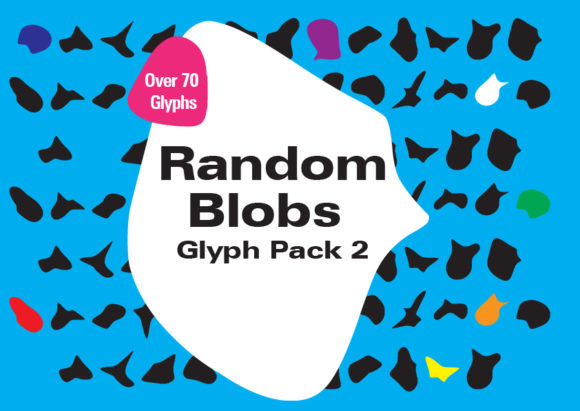
Prepare to be wowed by the remarkable Random Blobs 2 Font, a masterpiece from the renowned GraphicsBam Fonts. This font family, categorized as a dingbats font, is adorned with a collection of captivating glyph shapes that will ignite your imagination and transform your creative endeavors.
Immerse yourself in the world of Random Blobs 2 and discover a universe where sharp lines and pointed edges dance together in perfect harmony. Each element in this dingbat pack exudes a distinct charm, waiting to be unleashed onto your next crafting project. Let your creativity soar as you explore the limitless possibilities that await you with Random Blobs 2.
Step into a realm where fonts come alive, where every character possesses a unique personality. Random Blobs 2 is not just a font; it's an invitation to embark on an artistic journey. Whether you're a seasoned designer or just starting, this font will captivate your senses and inspire you to create designs that resonate with your audience.
Don't settle for ordinary fonts. Embrace the extraordinary with Random Blobs 2. Its versatility knows no bounds, effortlessly adapting to both web and print projects. Unleash your creativity and let your designs shine with a font that commands attention and sparks conversation.